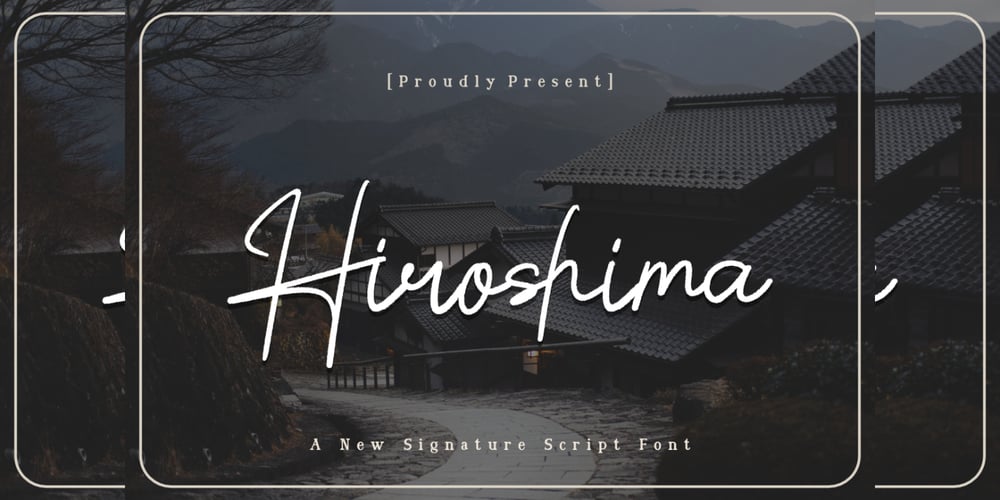
Hiroshima Font Family was designed by Bayu Aji Fais Mursid and published by Bayuktx. Hiroshima contains 1 styles and family package options. Hello,Thank you for visiting my products, we will give you the best choice.Hiroshima Signature Script Font, This font is made with a high premium quality level which you can use as flyers, quotes, posters, banners, packaging, merchandise, logotypes and much more.FEATURES :* Uppercase* Number* Punctuation* Multilingual* PUA Encode* OpentypeFILES INCLUDED :* Hiroshima 1* Hiroshima 2Thank you